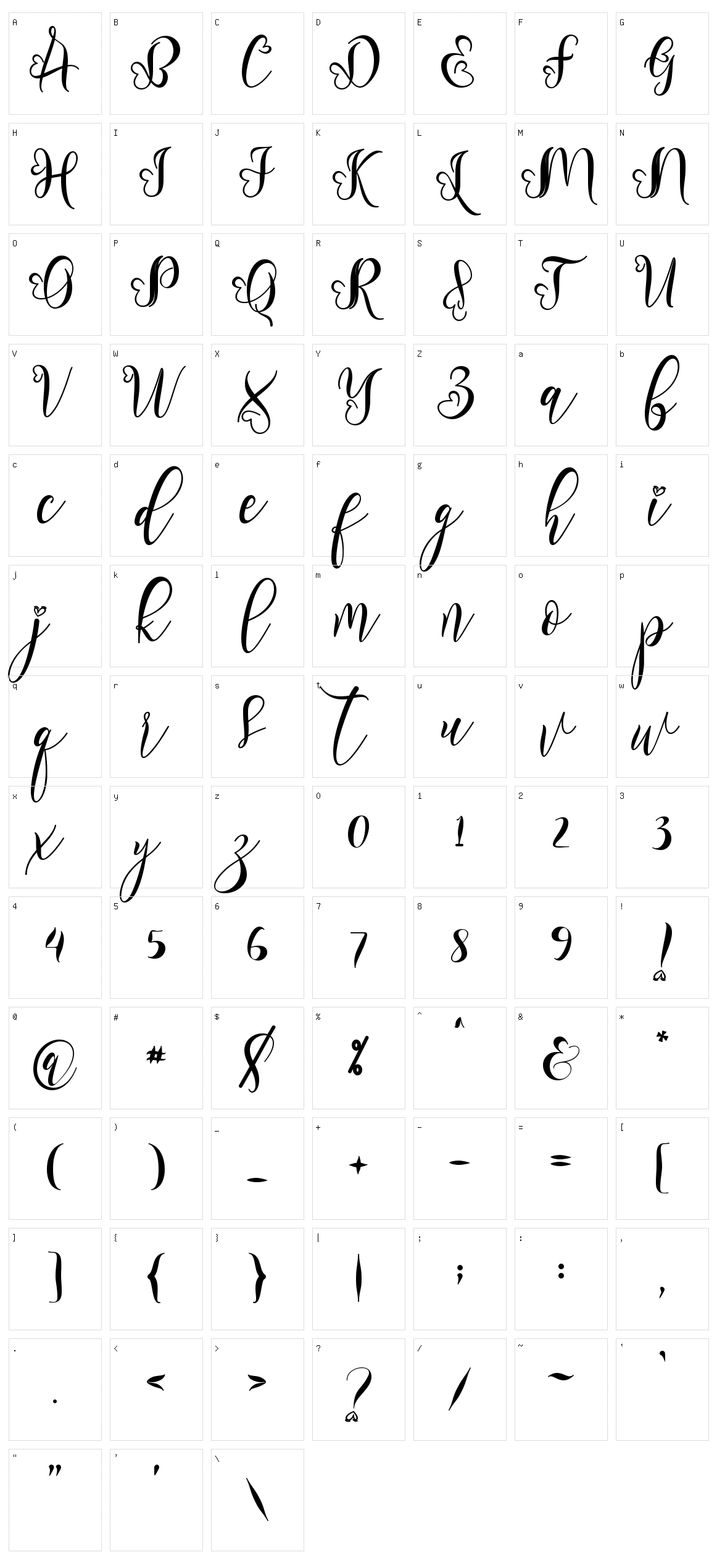
The free font Roshalia is carefully designed by Yoga Letter, showcasing a thoughtful balance of creativity and usability and falls under the Script font style. When you download the ZIP file, it contains only 278.95 KB of font files, making it lightweight and quick to download. Please review the license details below to understand permitted usage and distribution rights. If license information is not available, we recommend using this font for personal projects only or contacting the author directly for commercial usage permissions.